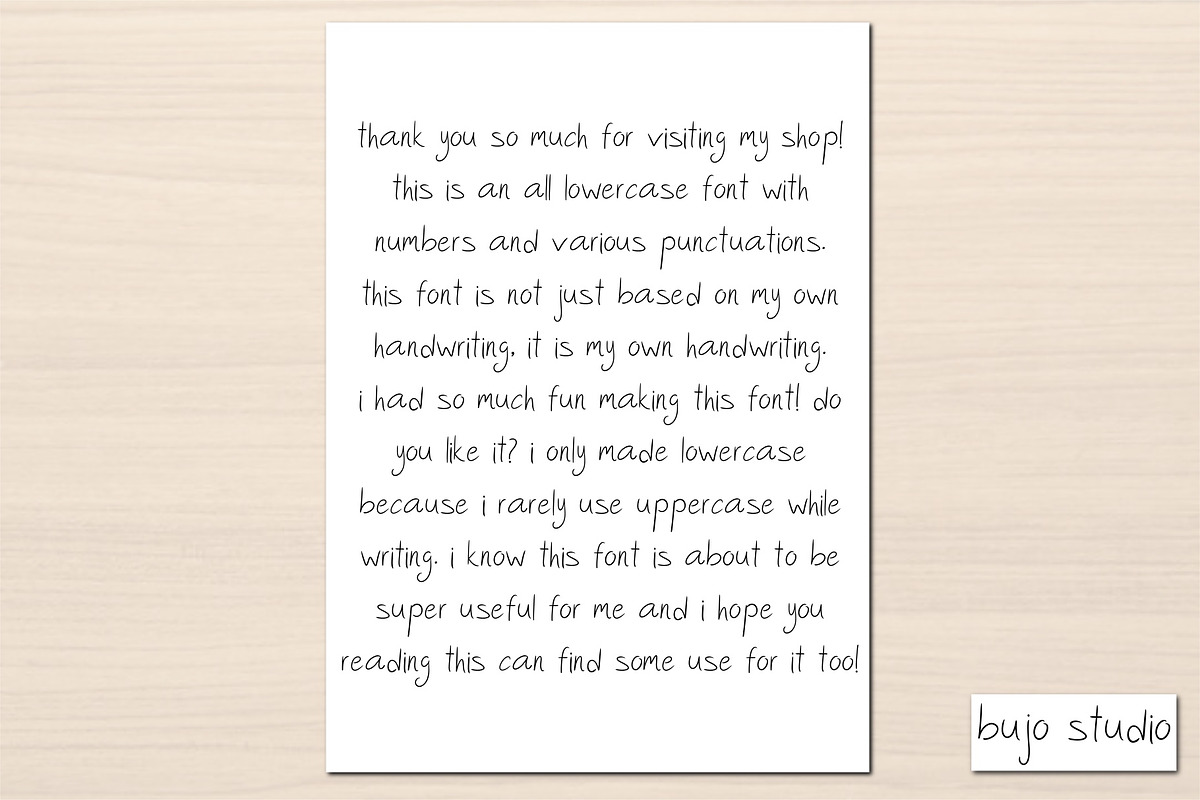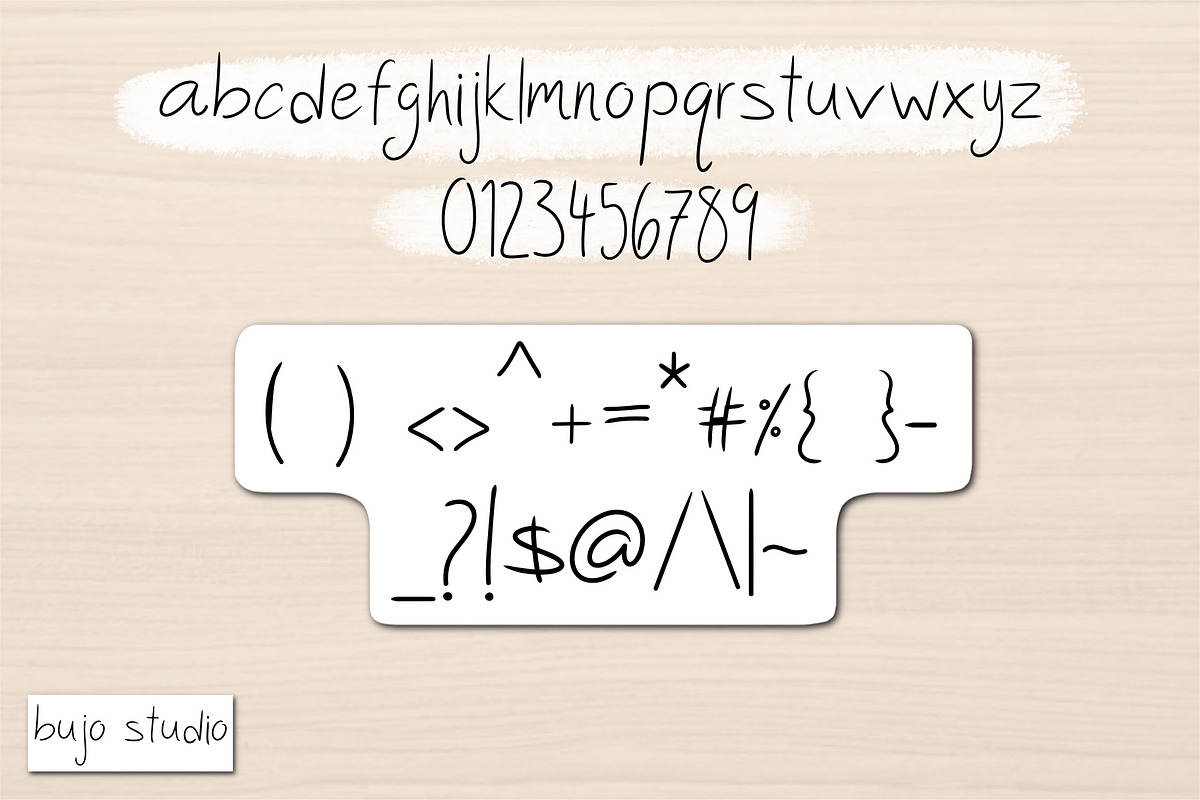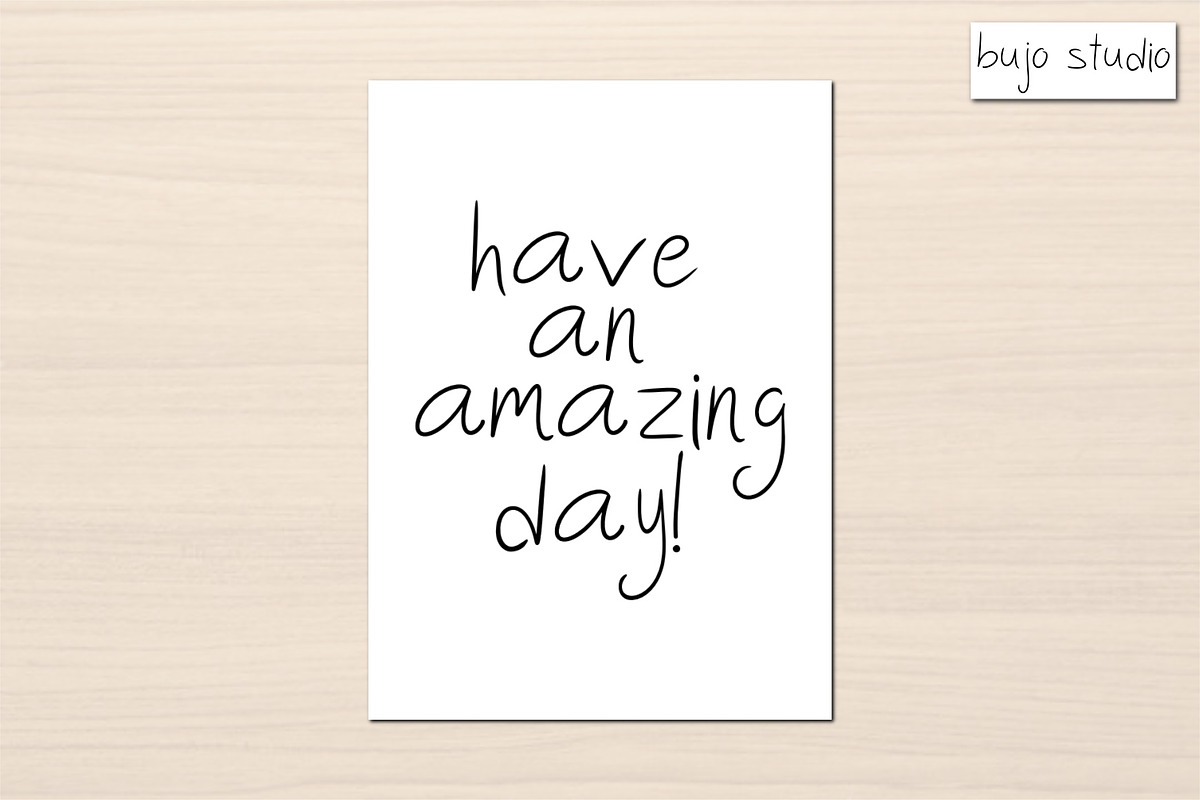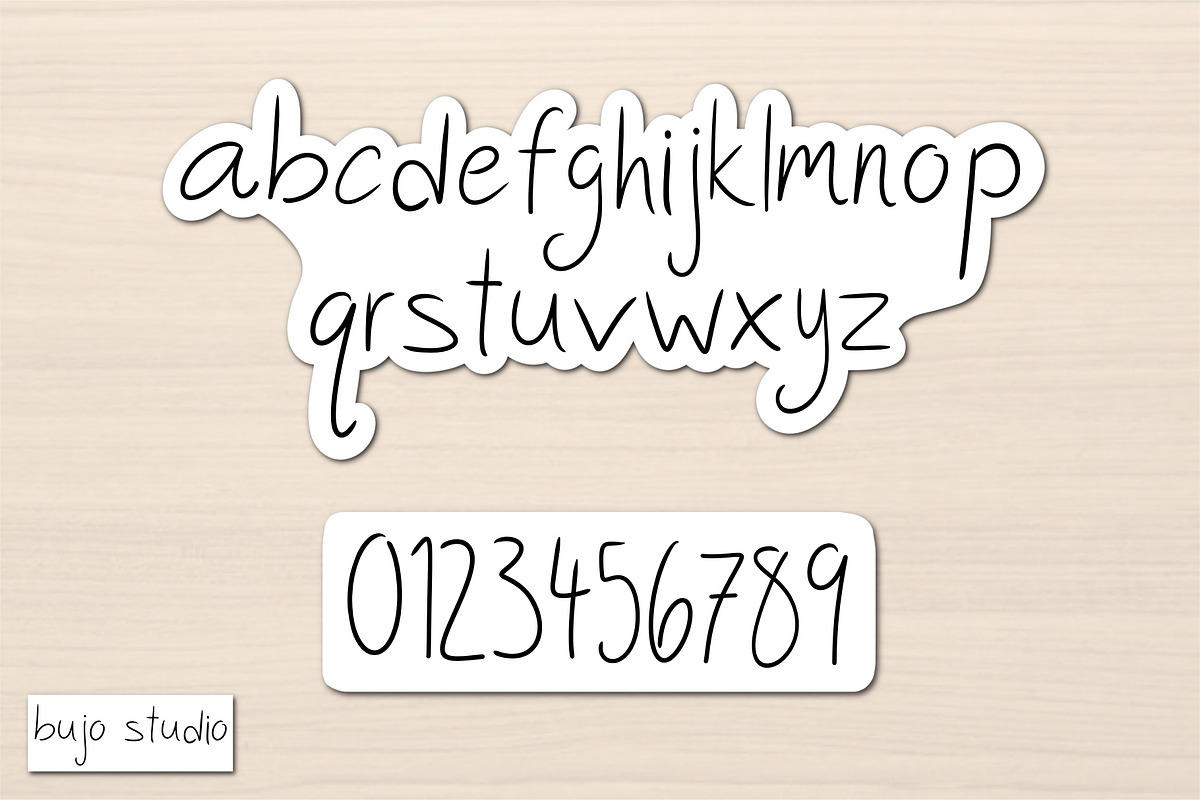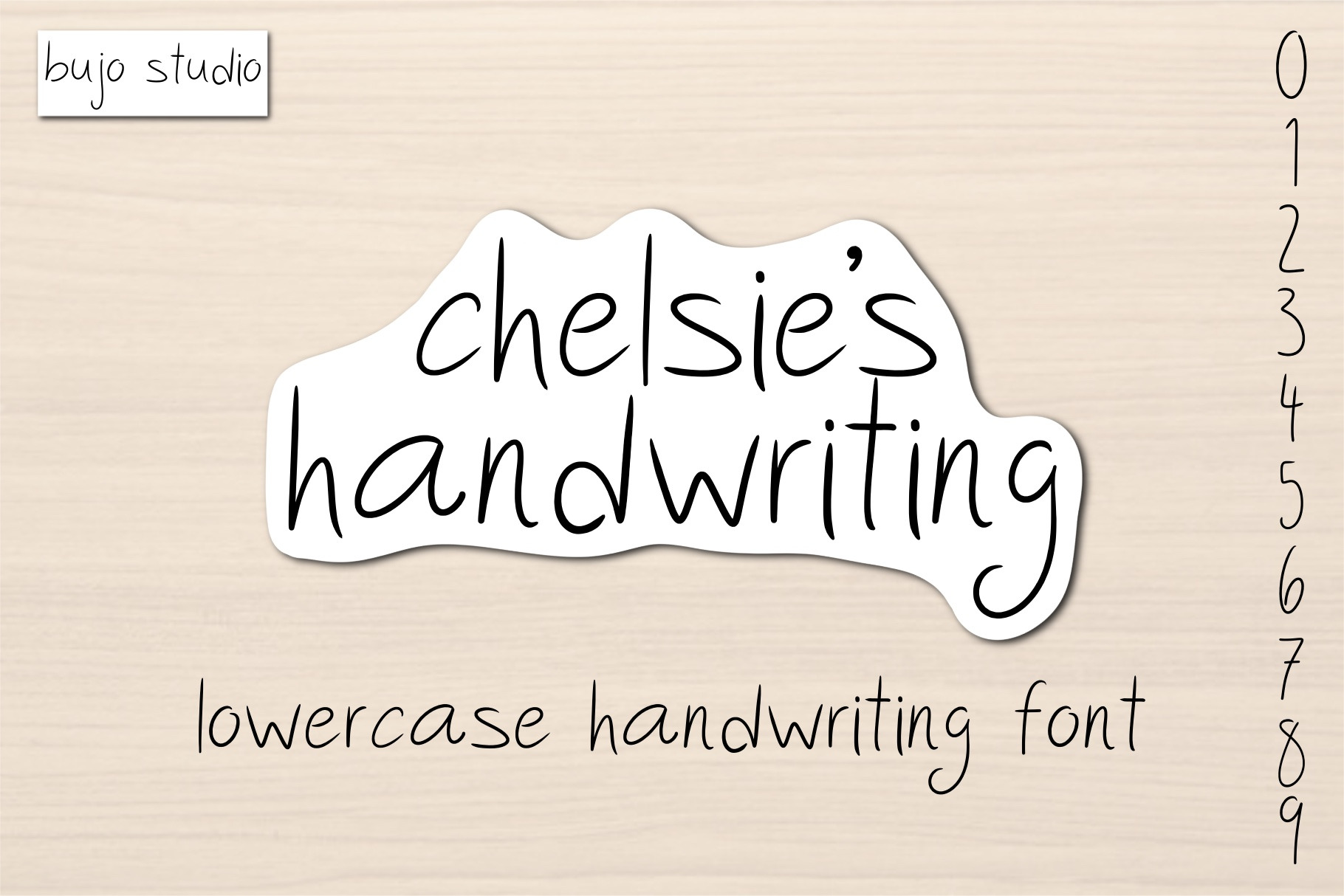
Chelsie's Handwriting Font
Chelsie's Handwriting is a casual, natural looking handwritten font based on my real handwriting. It's perfect for adding a personal, warm touch to your projects. From logos and branding to invitations, quotes, social media posts and more.
This font features clean, smooth strokes that keep the handmade feel while staying easy to read. Great for anyone looking for an authentic and approachable aesthetic!
- lowercase alphabet
- 0 through 9 numerals
- basic punctuation